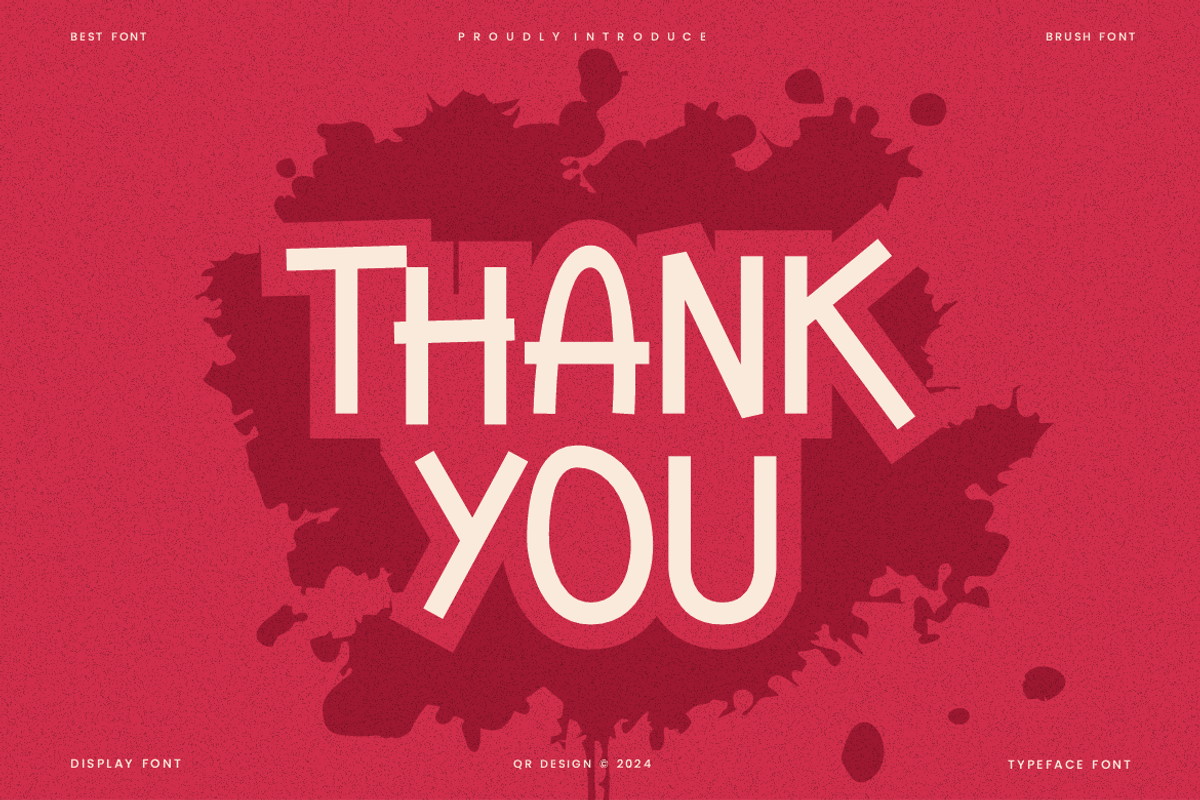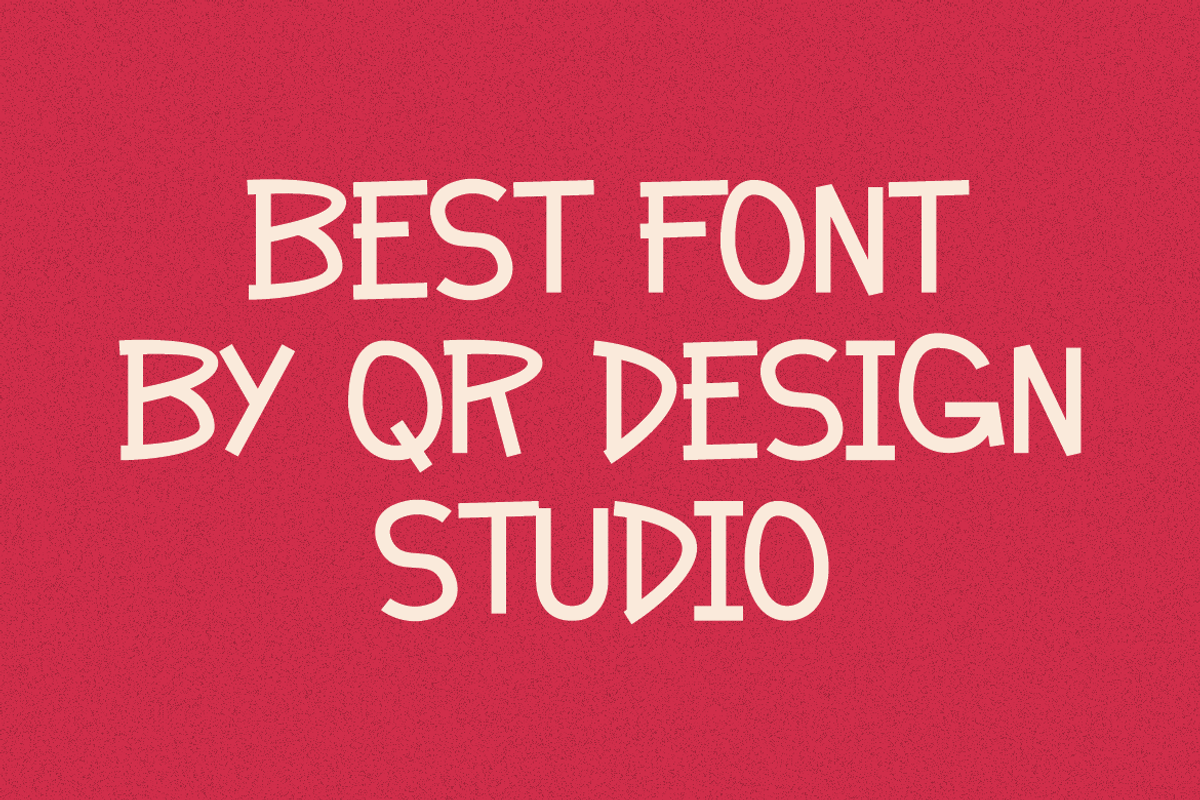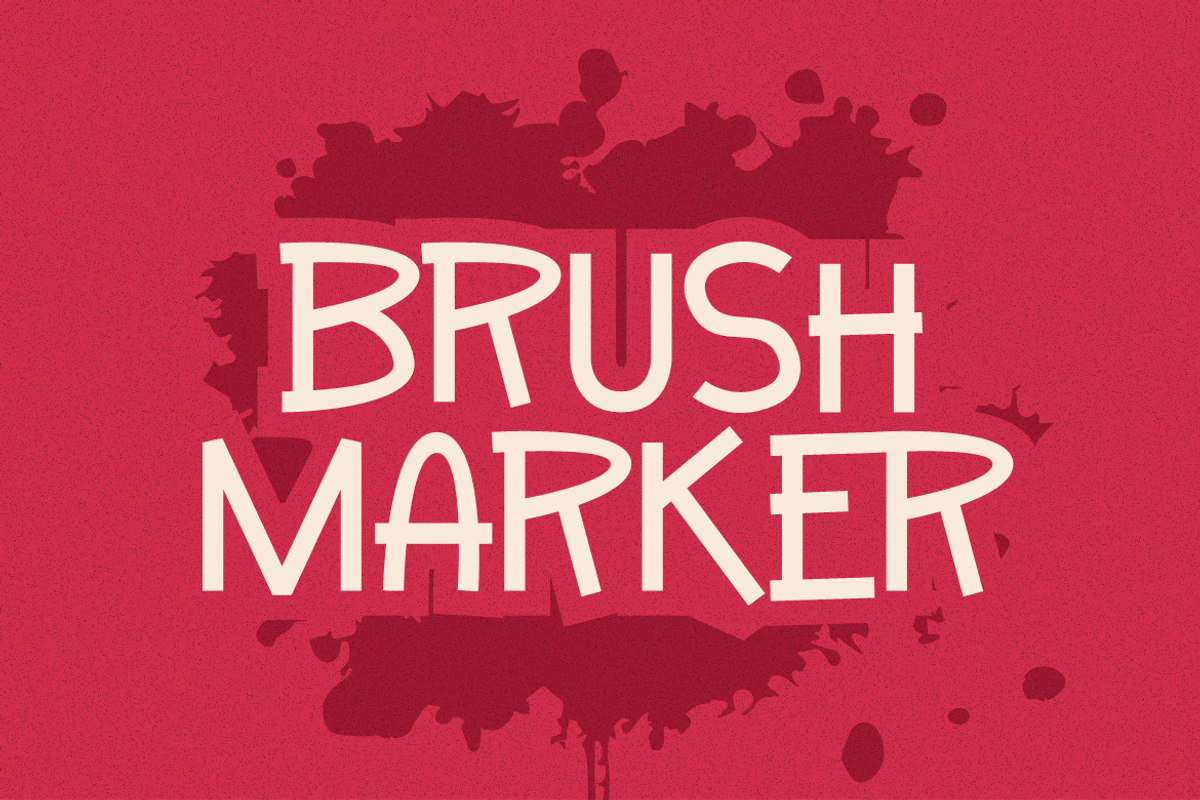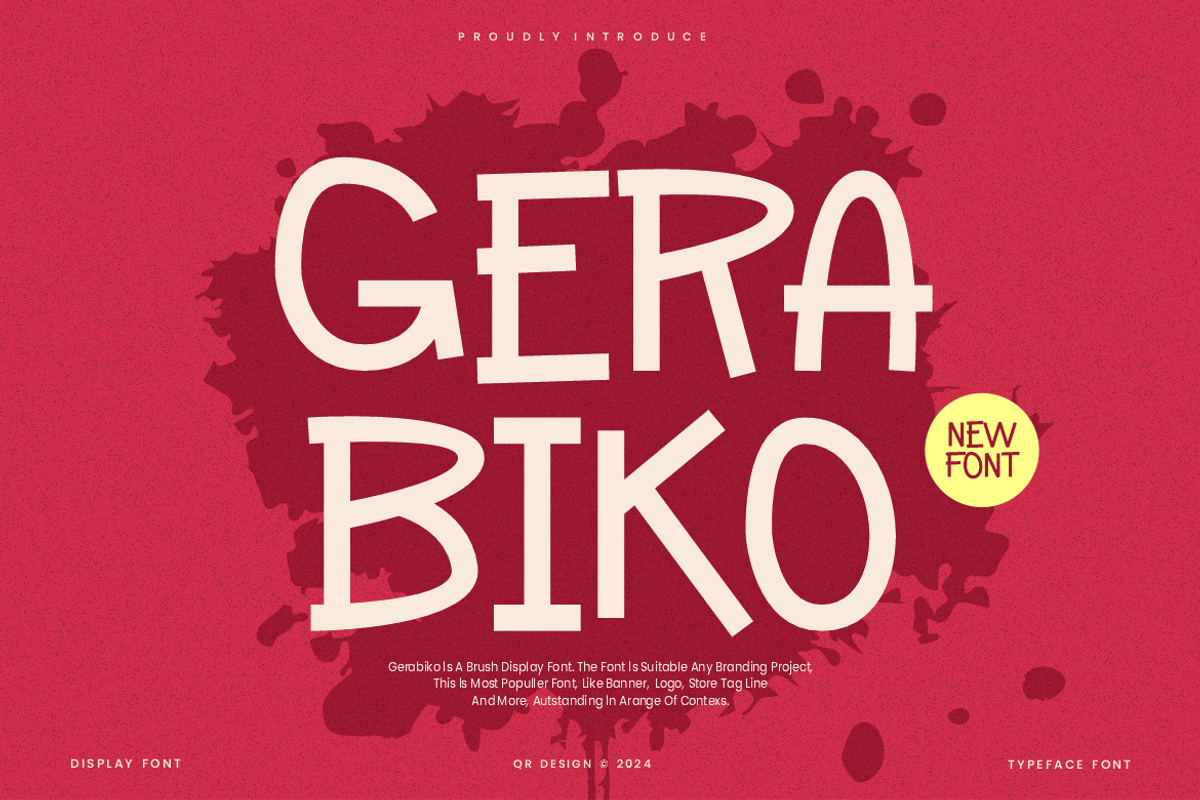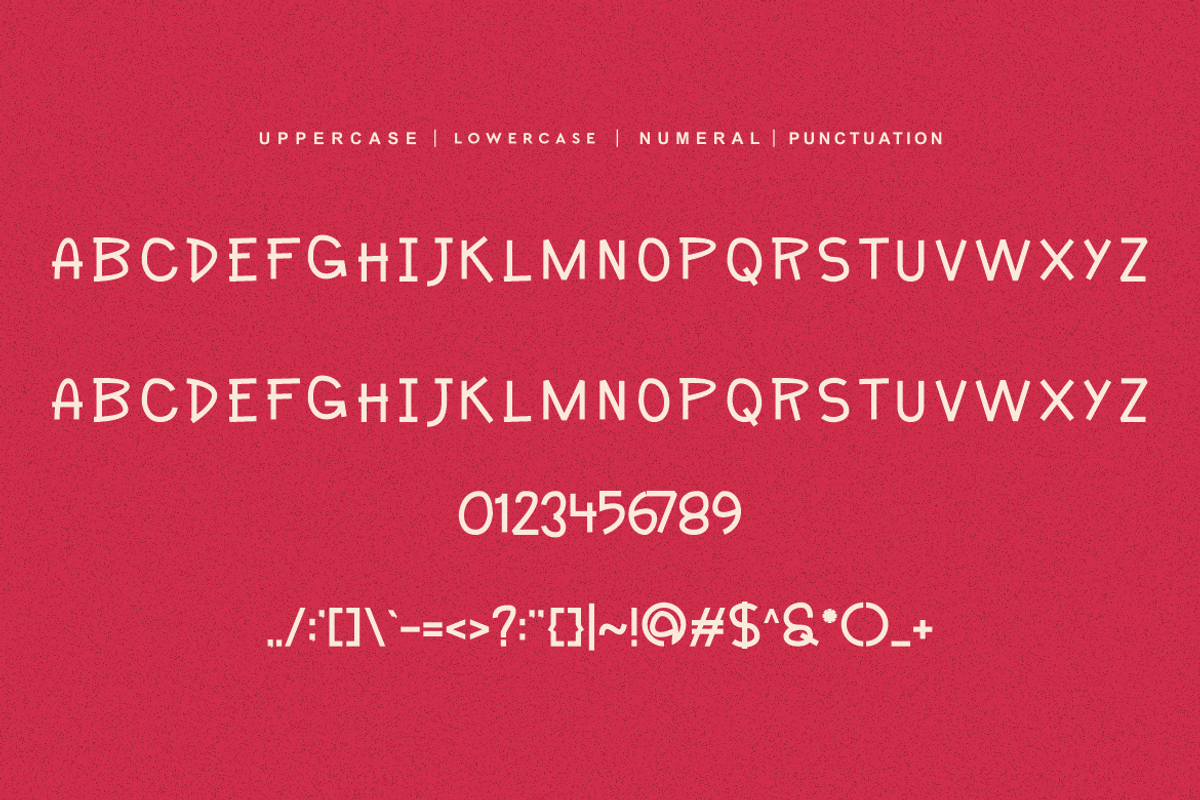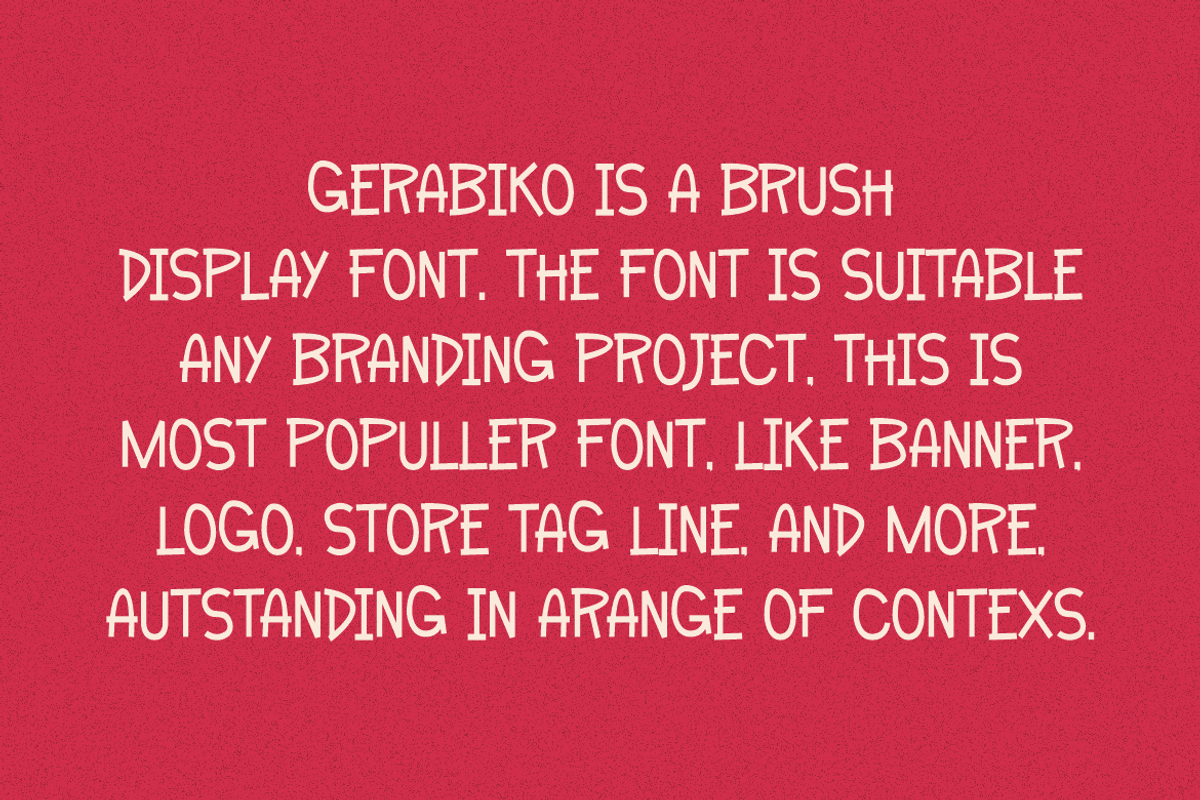
Gerabiko - Marker Font
Gerabiko Font is a modern and authentic display font. The font is suitable for any branding project like poster, logo, kids, and many more. Outstanding in a wide range of contexts.